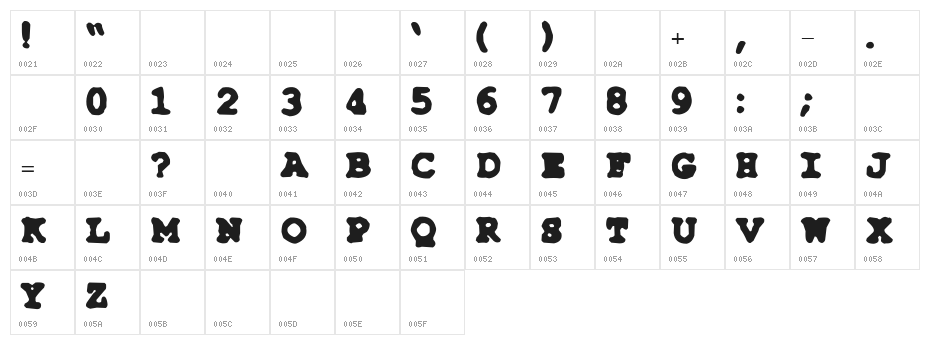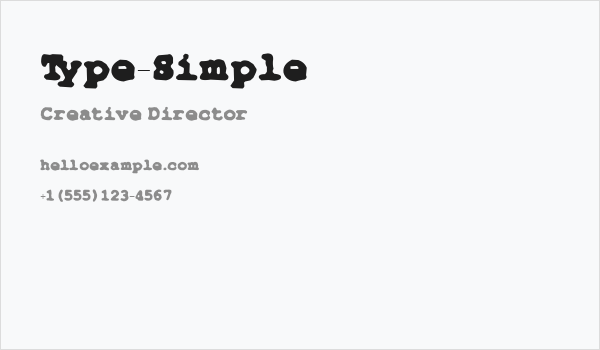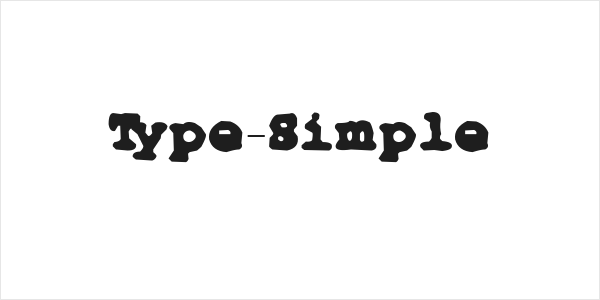
Type-Simple Font
Type-Simple Description
This font features bold, rounded characters with a playful and slightly irregular appearance. The letters have a hand-drawn quality, giving them a whimsical and informal style. The strokes are thick and consistent, creating a strong visual impact. The characters are closely spaced, enhancing the boldness of the design. This font is ideal for projects that require a fun and approachable aesthetic, such as children's books, posters, or playful branding. Its unique style makes it stand out, while still maintaining readability.
| Overall Style | Playful |
| Proposed Projects | Ideal for children's books, playful branding, posters, and informal designs. |